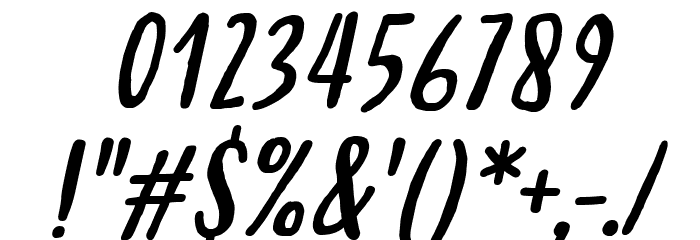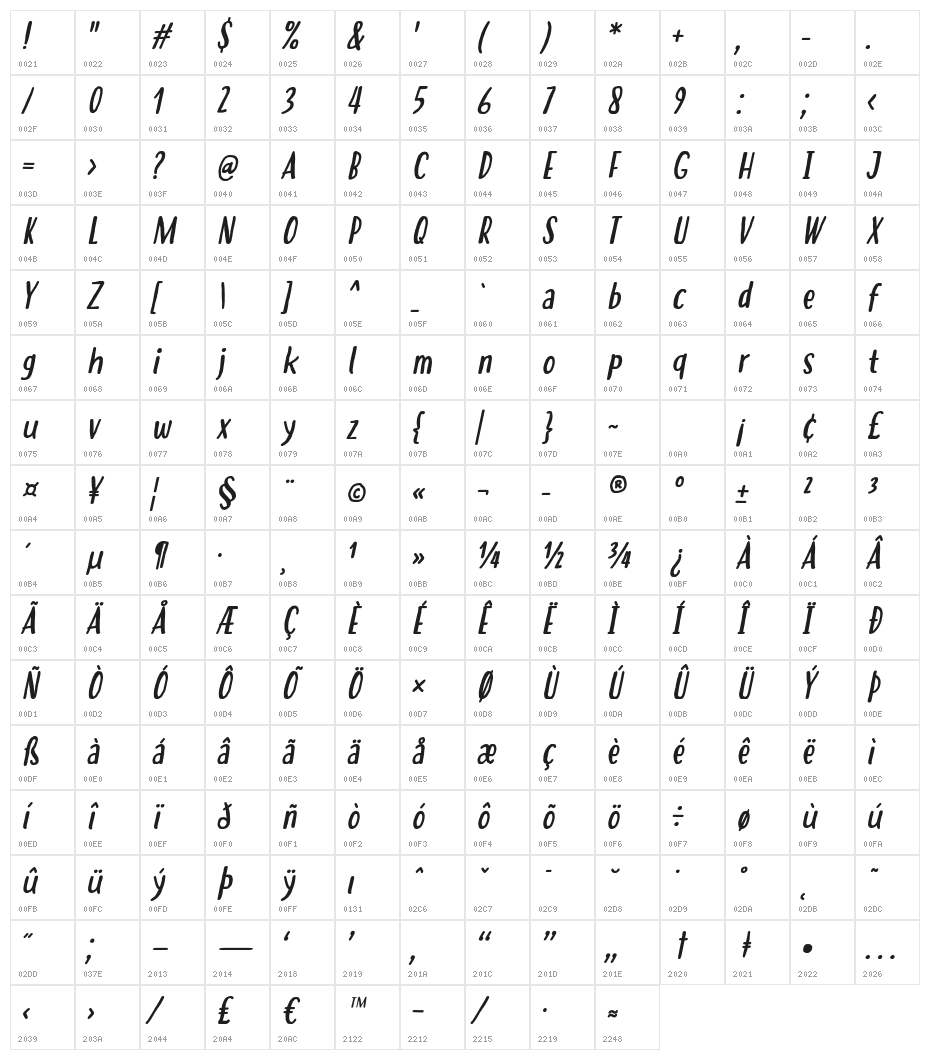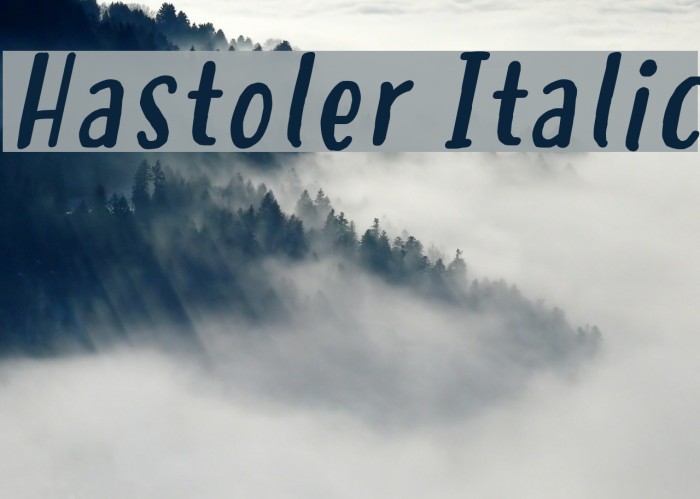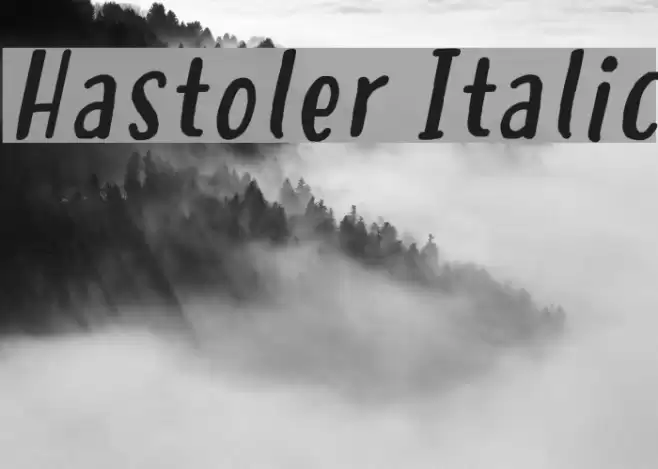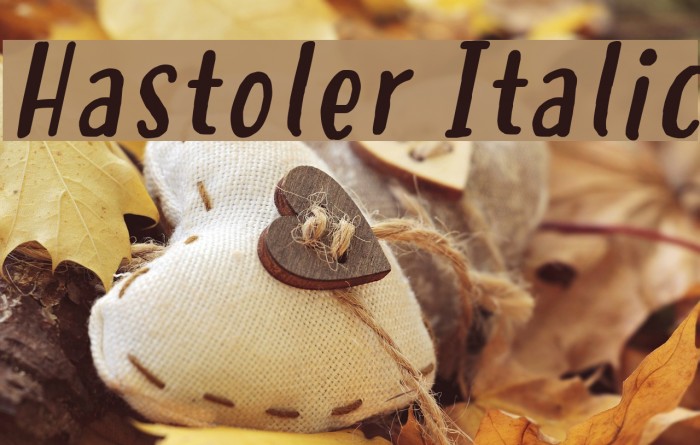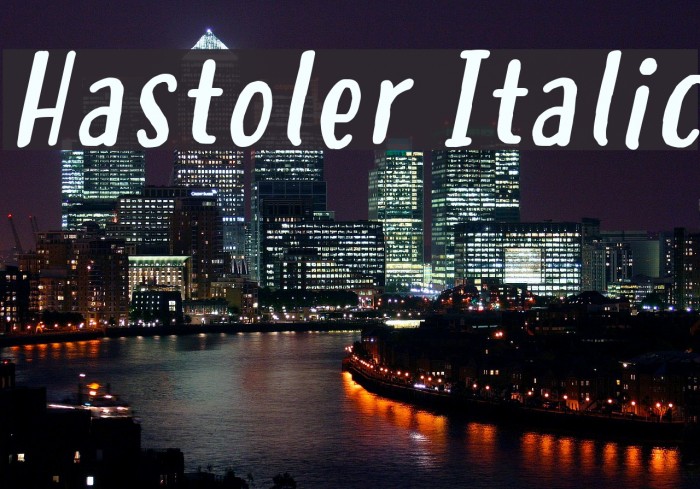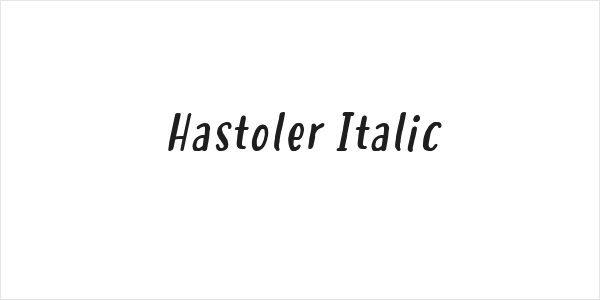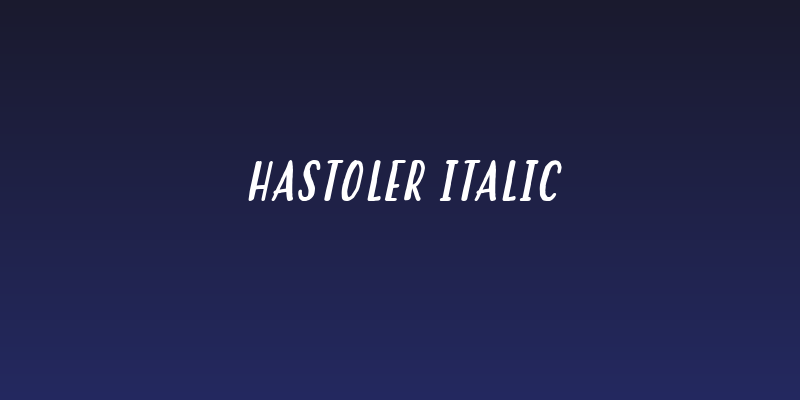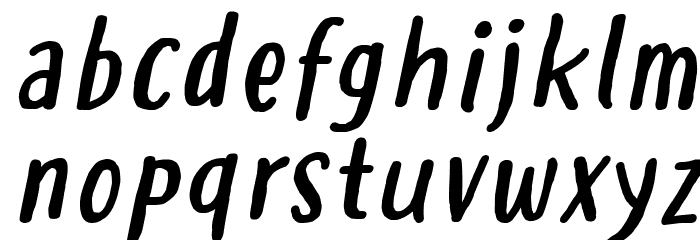
Hastoler Italic Font
Hastoler Italic Description
This font features a dynamic and expressive style with a handwritten appearance. The letters are slightly slanted, giving it an italicized look that adds a sense of motion and fluidity. The strokes are smooth and consistent, with a medium thickness that ensures readability while maintaining a casual and friendly vibe. The uppercase and lowercase letters are well-proportioned, and the numerals are clear and distinct. Special characters are included, enhancing its versatility for various design needs. This font is suitable for projects that require a personal touch or an informal tone.
| Overall Style | Casual, Expressive |
| Proposed Projects | Ideal for greeting cards, invitations, personal branding, and social media graphics. |